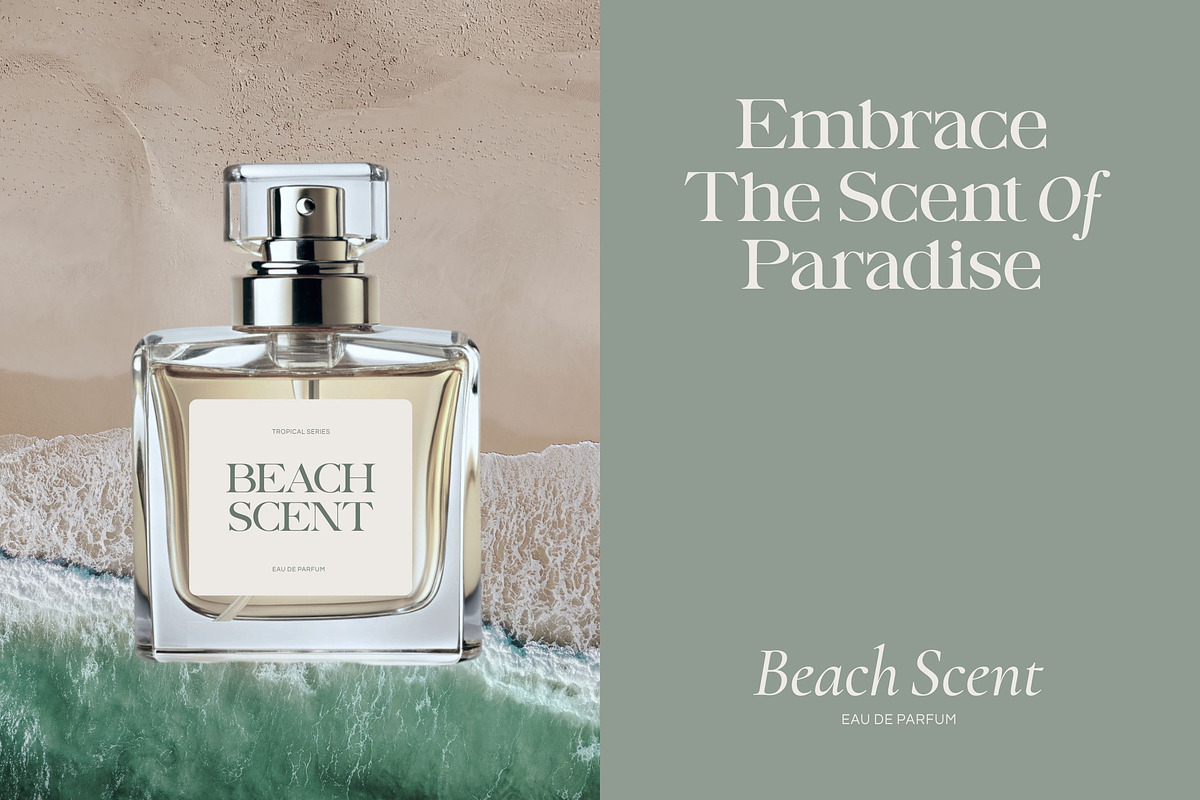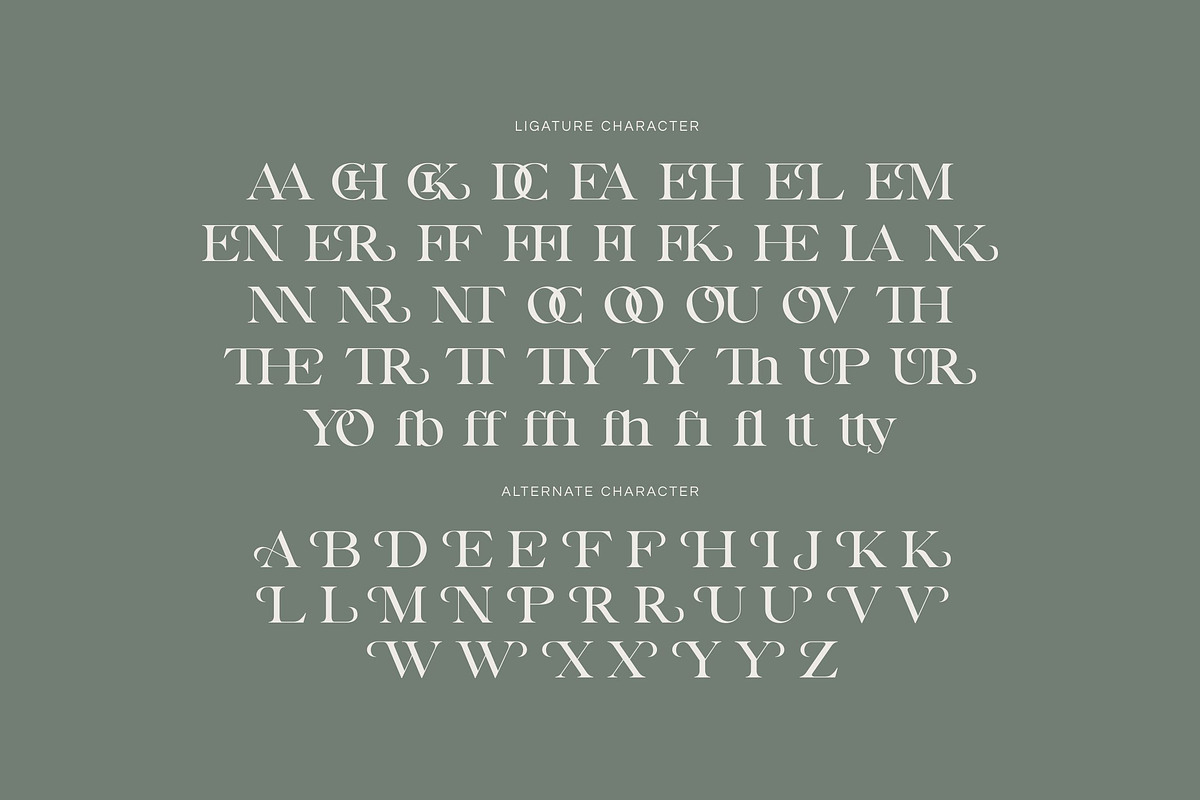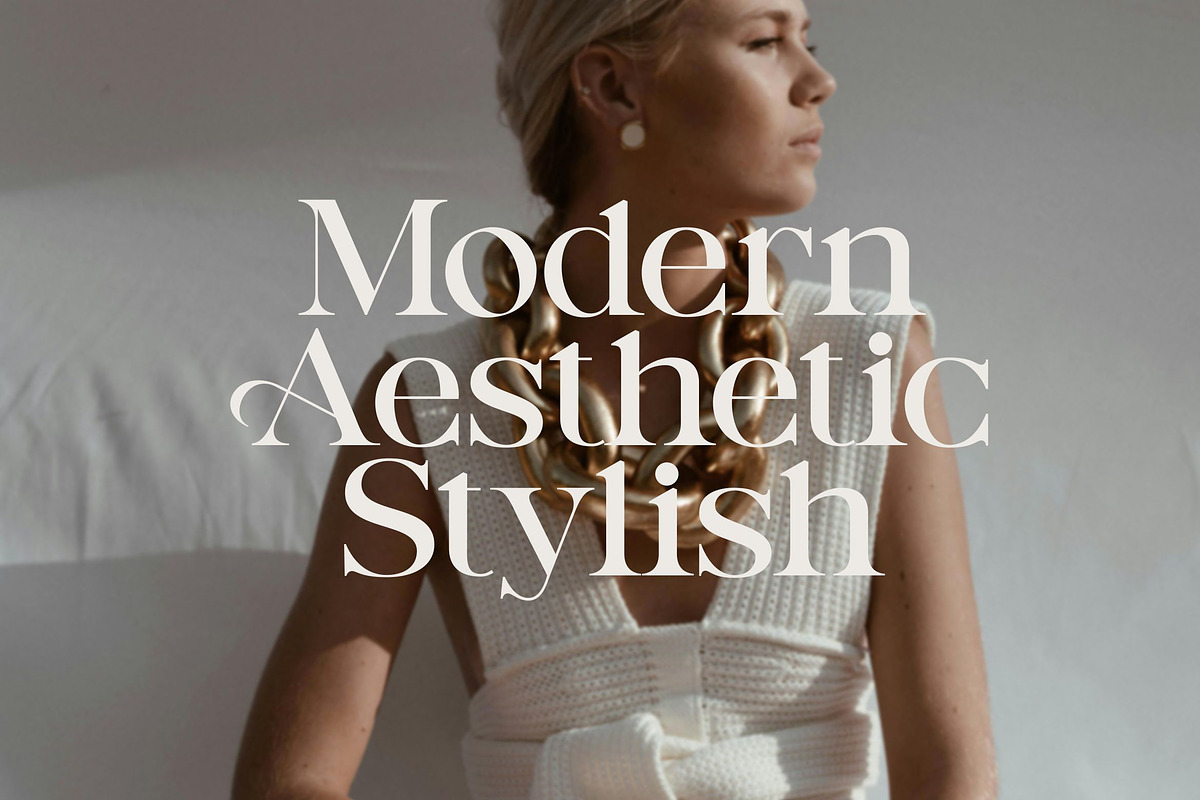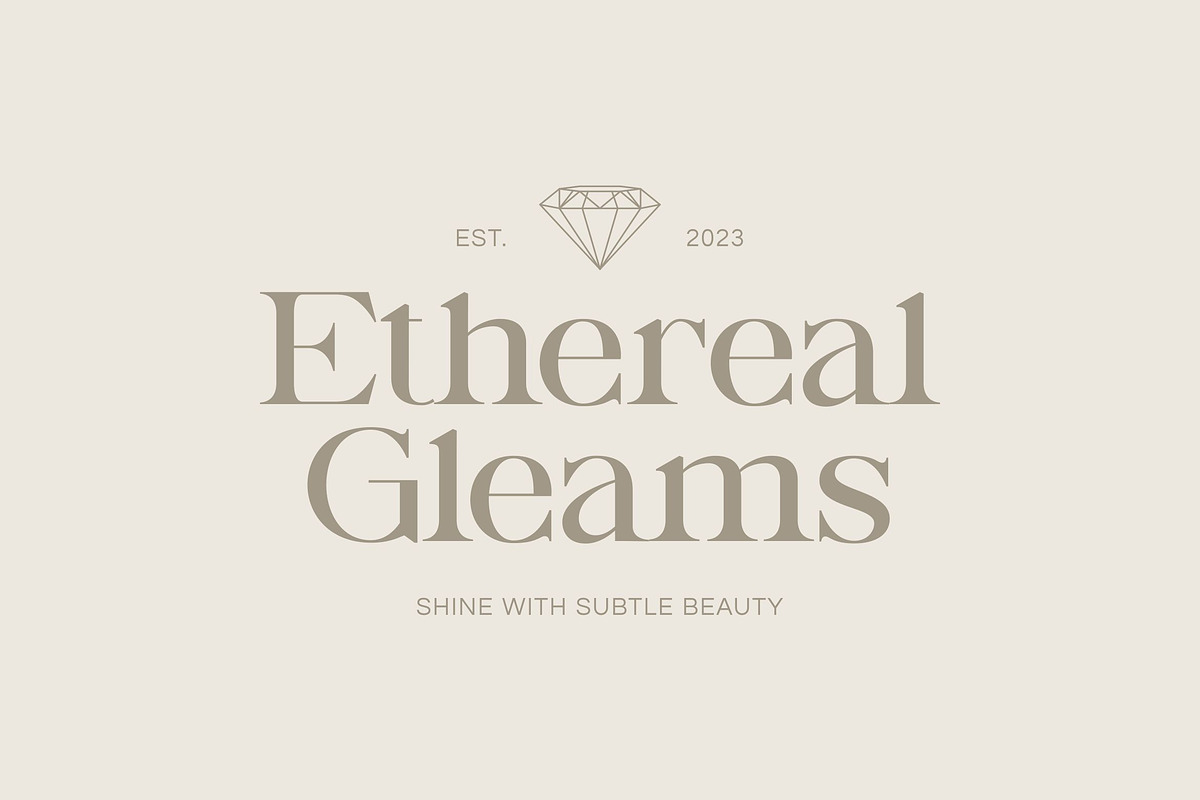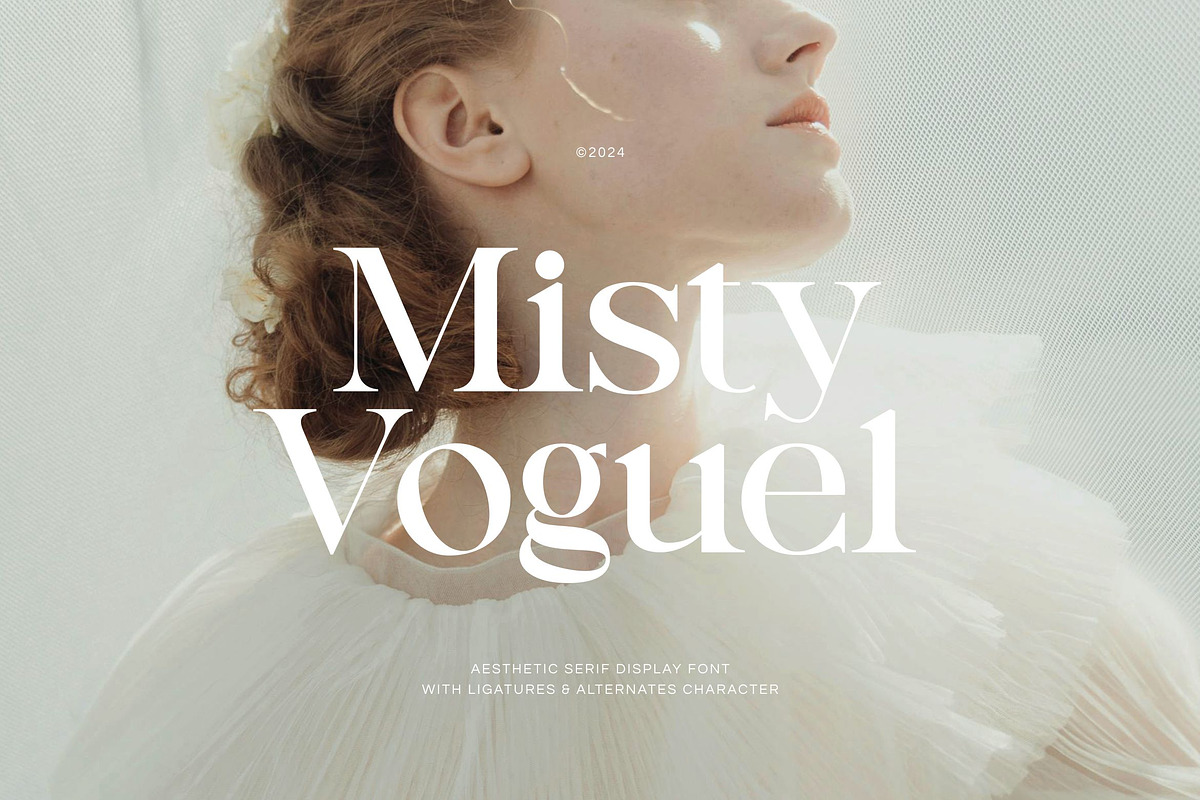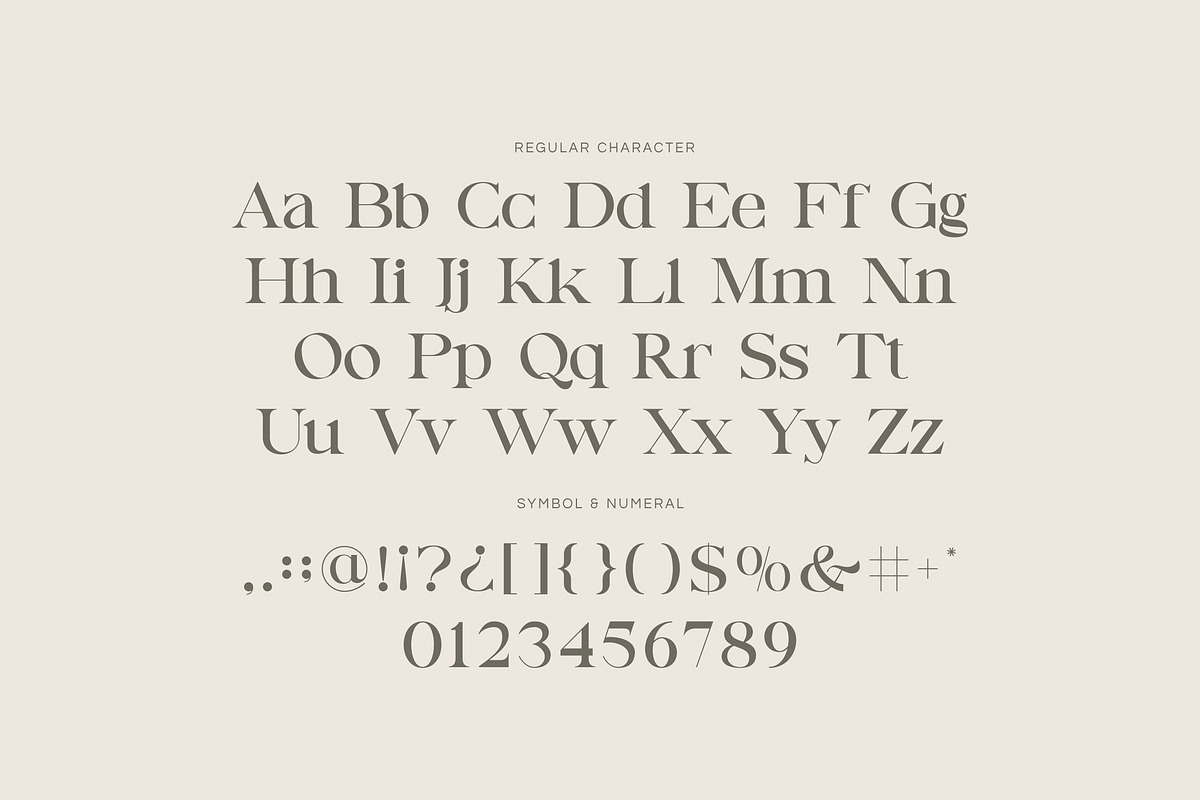
Misty Voguel - Aesthetic Serif Font
Introducing Misty Voguel a masterfully crafted typeface that blends timeless elegance with a sharp, contemporary edge. Inspired by the glossy pages of high fashion magazines and luxury branding, this font is designed to make a sophisticated statement.
Stark contrast between its thick, confident vertical strokes and razor thin horizontal strokes and serifs. This creates a dynamic rhythm and an immediate sense of luxury and drama, characteristic of the Modern or Didone serif style.
This font is the perfect choice for projects that require a touch of class and sophistication. It’s an essential tool for designers working on branding, fashion projects, headlines, titles, posters, editorial design, crafting a memorable wedding invitation, luxury packaging, and elegant invitations.
Uppercase and Lowecase Characters.
PUA Encoded Characters.
Numerals and Punctuations.
Alternates and Ligatures.
Multilingual Support.